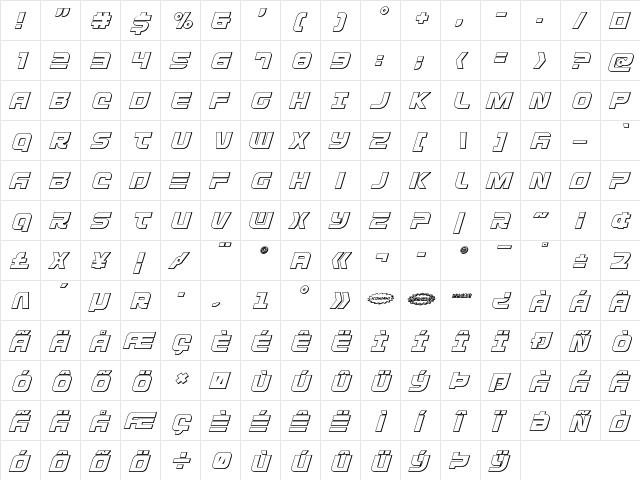
Defcon Zero Outline Italic Outline Italic
Design Context for Defcon Zero Outline Italic Typeface
Defcon Zero Outline Italic is built around its visual character rather than neutral utility — its distinctive forms are designed to make an impression at display sizes. The dynamic lean of this cut emphasises speed and emphasis in any layout.
Font Pairing: Pair with a clean neutral sans-serif for body copy to let Defcon Zero Outline Italic's character lead without overwhelming the composition.
Pro Tip: Use Defcon Zero Outline Italic exclusively at display sizes — it was designed to be seen, not read at length. Let a neutral companion handle body copy.